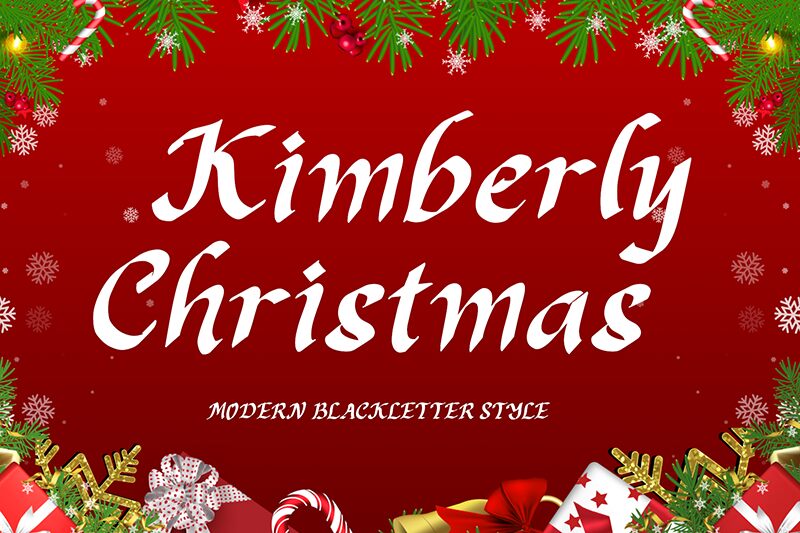
Kimberly Christmas font by Yoga Letter is a free decorative script font with elegant details and fancy personality. This font features calligraphy that’s natural and playful in nature. Individual letters are assertive with well balanced lines and a fun mood. Letters connect seamlessly to each other creating gorgeous, legible typography.
In a non-traditional sense, this font can be incorporated into Halloween theme projects due to its characters’ quirky and spooky look. Similarly, you can use it to design typographic logos, packaging, t-shirt designs, and much more. Explore more creative usages by downloading and experimenting with it.